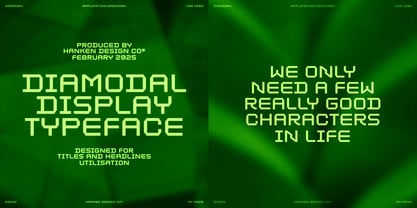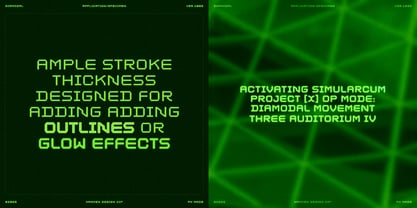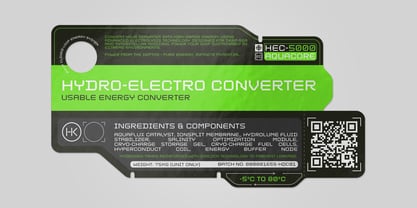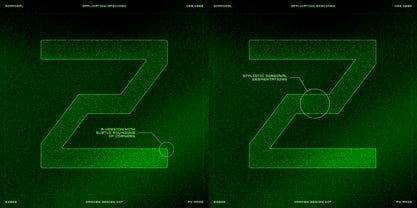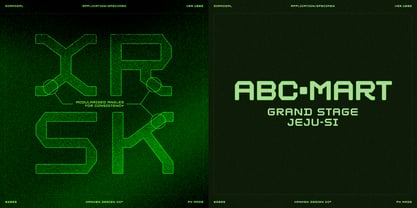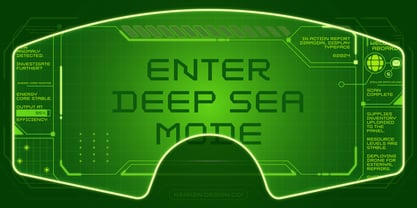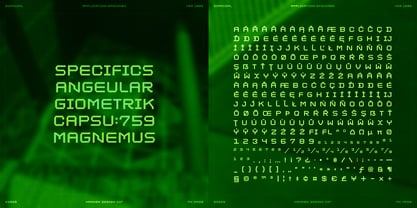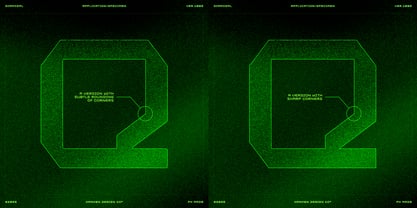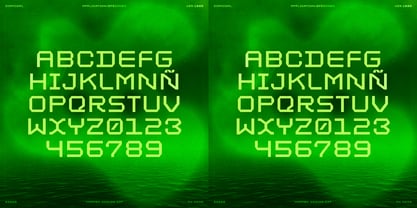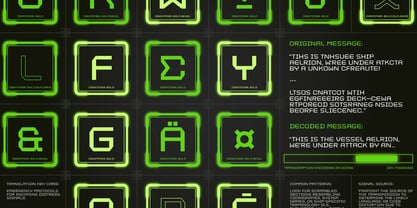
Diamodal
by Hanken Design Co.
The Diamodal Font Family was designed by Alfredo Marco Pradil and published by Hanken Design Co.. Diamodal contains 2 styles and family package options. More about this family
Diamodal is a typeface characterized by its geometric precision and metallic finish, engineered to evoke a machined industrial aesthetic. Optimized for high-impact applications such as headline typography, brand identities, and heads-up display (HUD) interfaces, its modular forms and angular letterforms align with technical specifications for projects requiring a futuristic or science-fiction-themed design language. The typeface's structural clarity and adaptive legibility make it particularly suited for digital environments and contemporary visual communication systems demanding a technologically advanced stylistic framework.
Designers: Alfredo Marco Pradil
Foundry: Hanken Design Co.